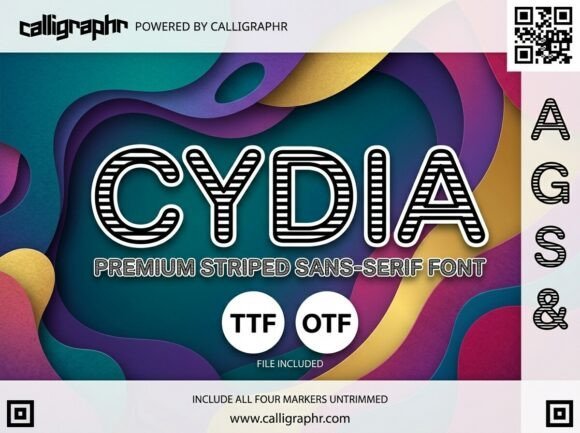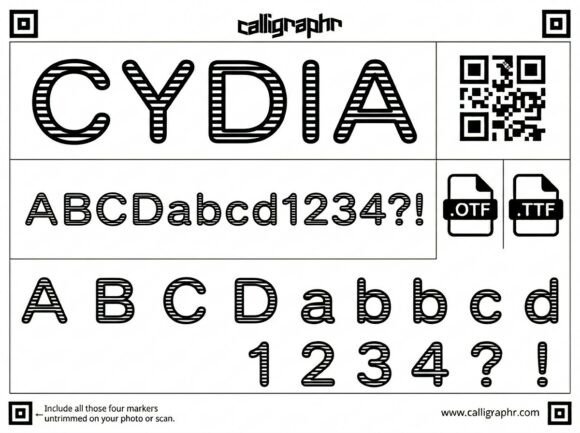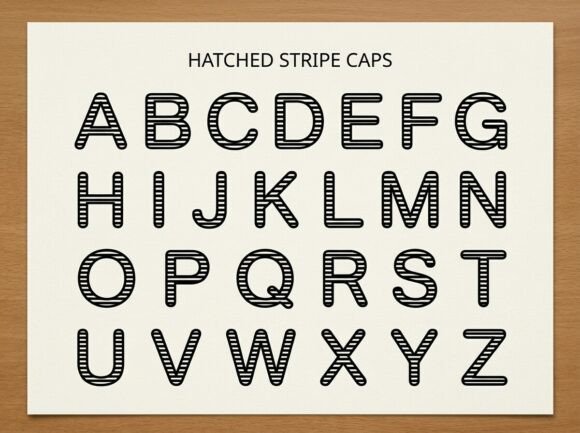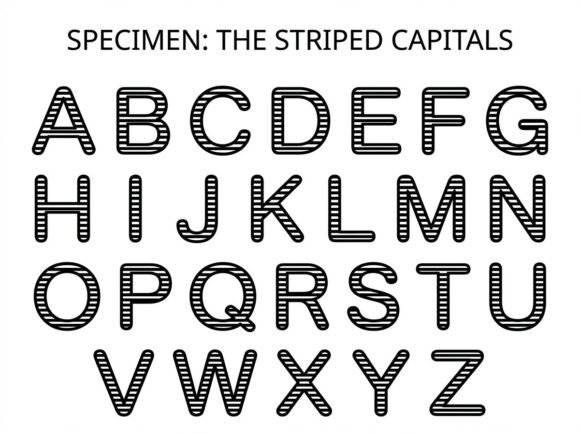
Unlocking the Rhythm of Modern Design
As a designer, have you ever felt like your work needs a boost of energy and precision? Maybe you’re stuck on a project that requires a modern, technical, or athletic aesthetic, but you just can’t seem to find the right font to bring it all together.
That’s where Cydia Font comes in – a decorative display font that adds a touch of playful geometry to your designs. With its clean outlines and rhythmic horizontal stripes, Cydia Font is the perfect solution for designers looking to create visually striking projects that exude a sense of modernity and professionalism.
Whether you’re designing for a digital app or a physical product, Cydia Font delivers a sense of handcrafted precision and vibrant charm to every word, making it an invaluable addition to any designer’s toolkit.
Cydia Font Key Features
- Unique Characteristics: Cydia Font features a futuristic, high-tech aesthetic, with sleek lines and geometric shapes, making it perfect for tech-related projects and futuristic designs.
- Legibility: Despite its futuristic design, Cydia Font is highly legible, making it suitable for use in body text, headings, and titles.
Cydia Font Review
I recently had the chance to work with the Cydia font, and I must say it’s an interesting addition to any design project. ✨ One of the things that works well is its unique and bold aesthetic, which can add a touch of sophistication to headings and titles. The font’s distinctive letterforms and generous spacing make it perfect for use in logos, branding, and other high-impact design elements.
However, there are some limitations to consider. ⚠️ The font’s bold weight can sometimes feel overwhelming, making it difficult to read in large blocks of text. Additionally, the font’s lack of subtlety can make it feel less versatile than other, more neutral fonts. Overall, I would recommend using Cydia font sparingly and in select situations where its bold personality can shine.
- Unique and bold aesthetic
- Perfect for use in logos, branding, and other high-impact design elements
- Distinctive letterforms and generous spacing
- Available in various weights
Recommendation:
If you’re looking for a font that makes a statement, Cydia is definitely worth considering. Just be sure to use it thoughtfully and in the right context to get the most out of its bold personality.
To get the most out of Cydia Font, use it for:
1. Headings and titles to add a touch of elegance.
2. Body text to create a unique and stylish visual flow.
3. Logos and branding materials to create a consistent visual identity.
Remember to experiment with different font sizes, styles, and combinations to achieve the desired effect.